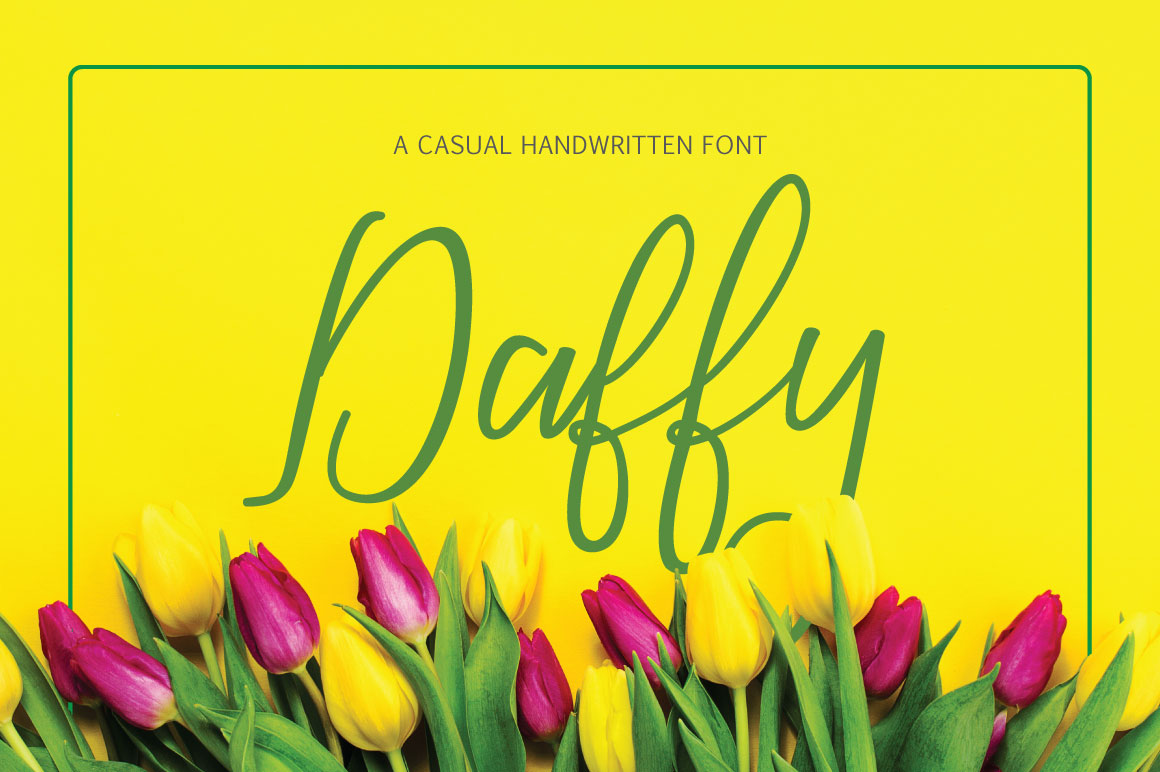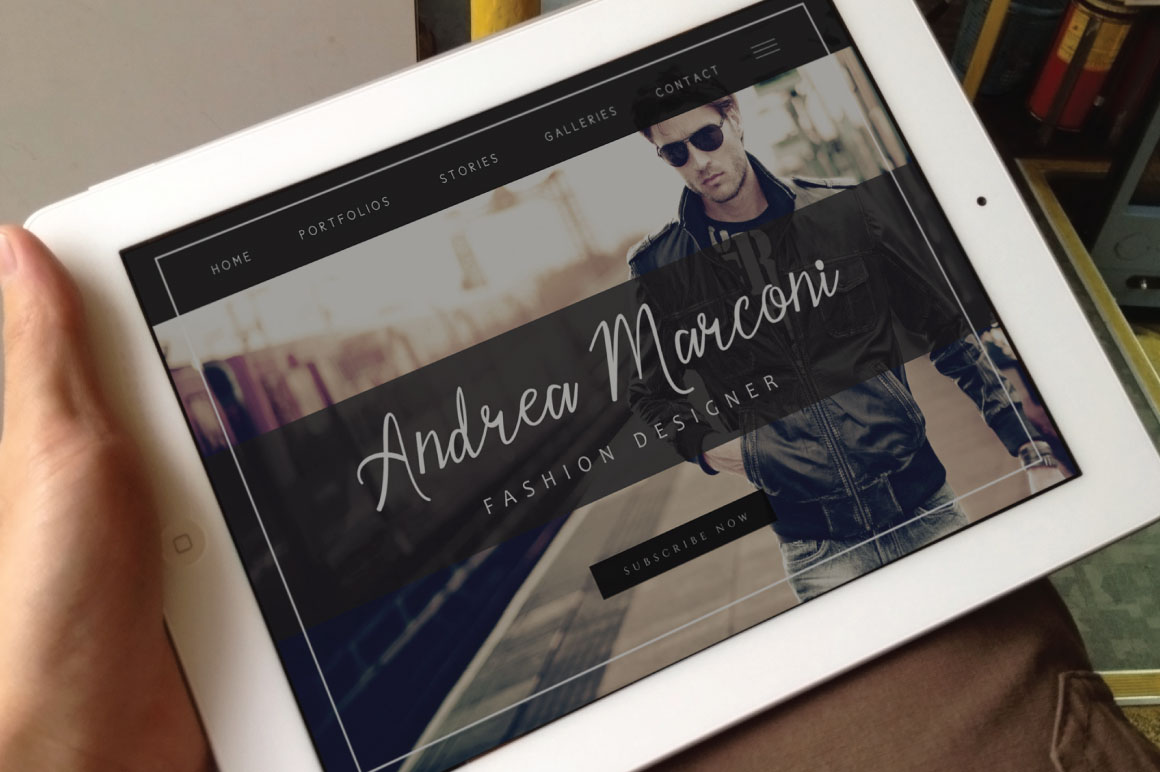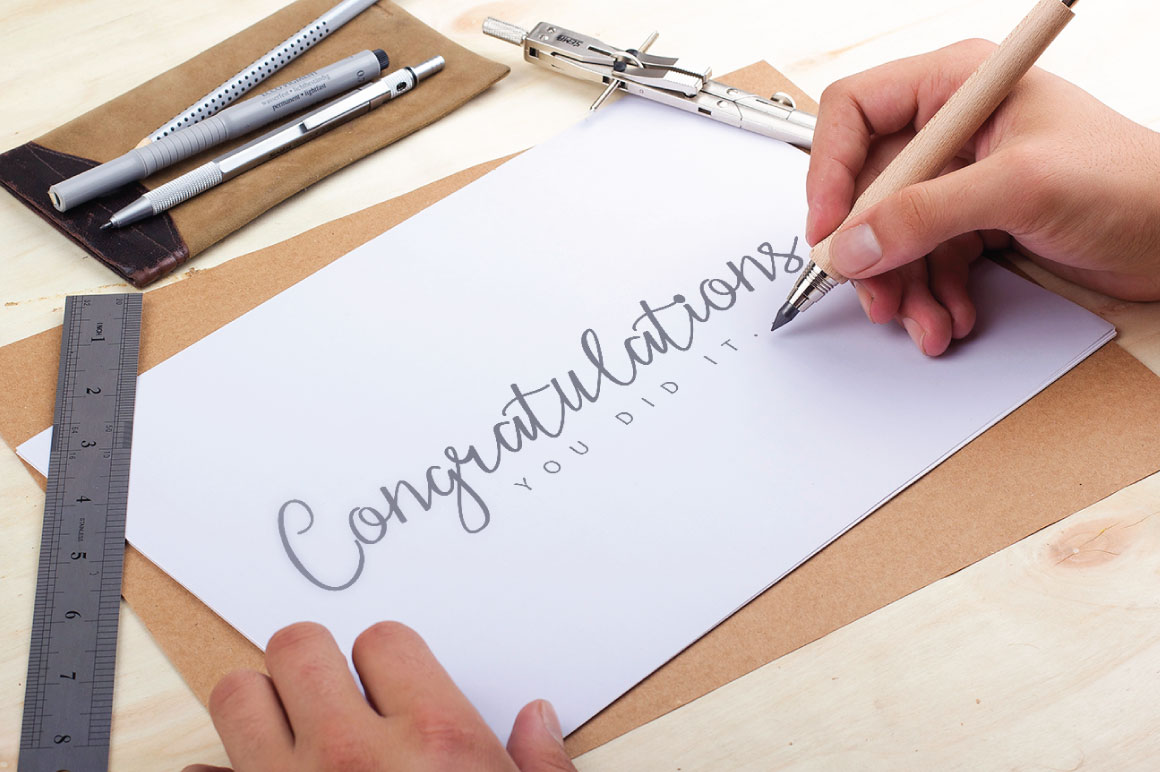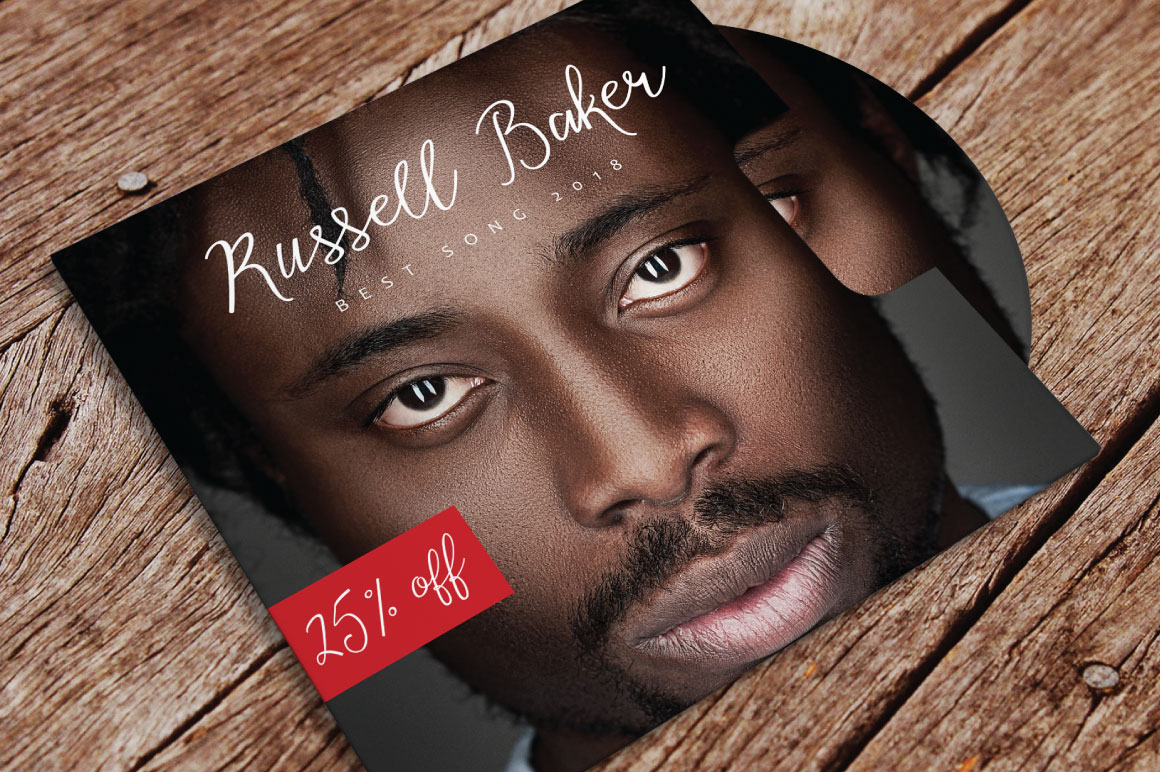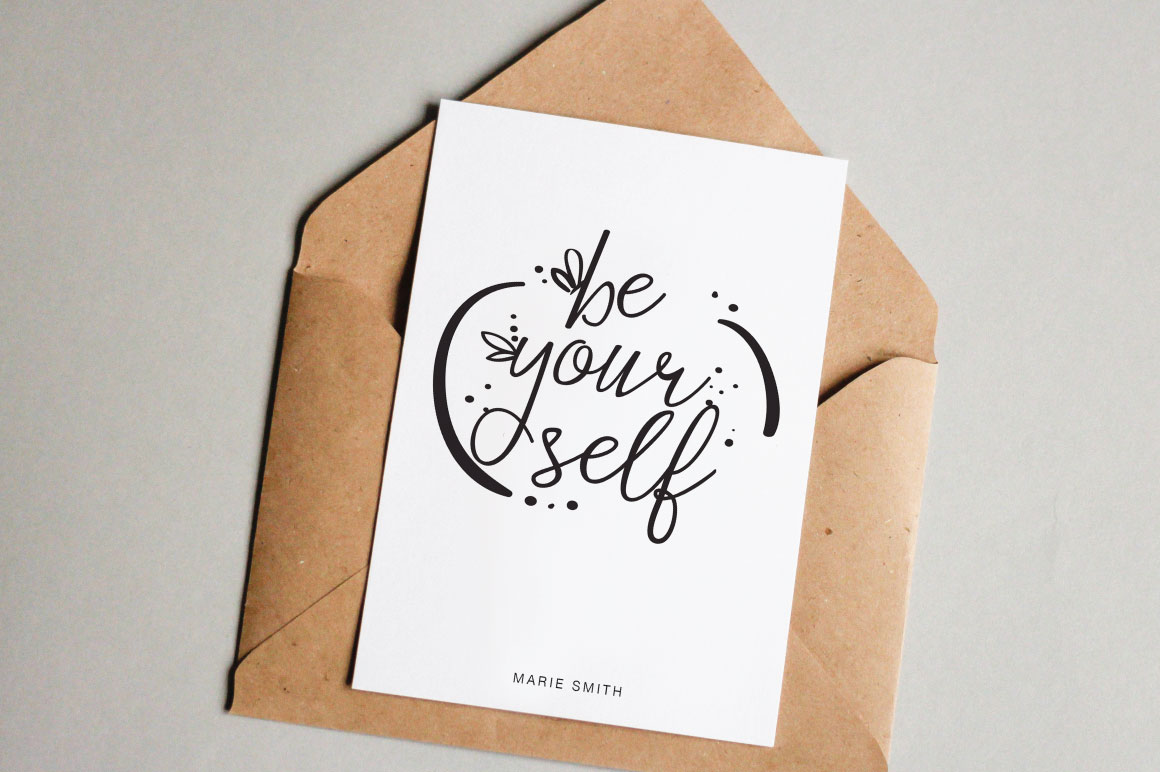
Daffy Font
About Daffy Font
Daffy is a charming, enjoyable script. It is sensibly designer to give a personal touch to your designs. This lively script will add a stunning appearance to your projects in an instant.